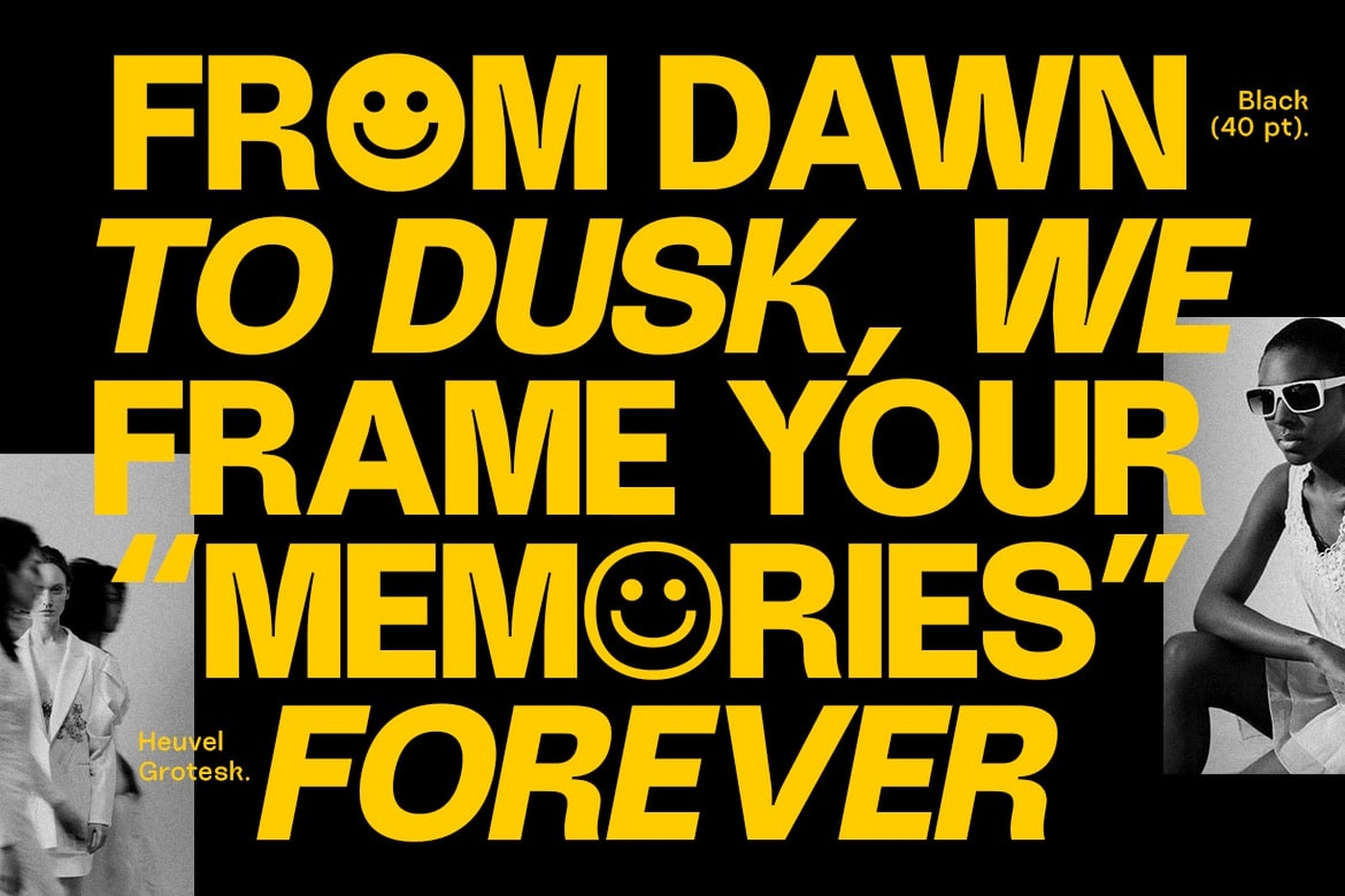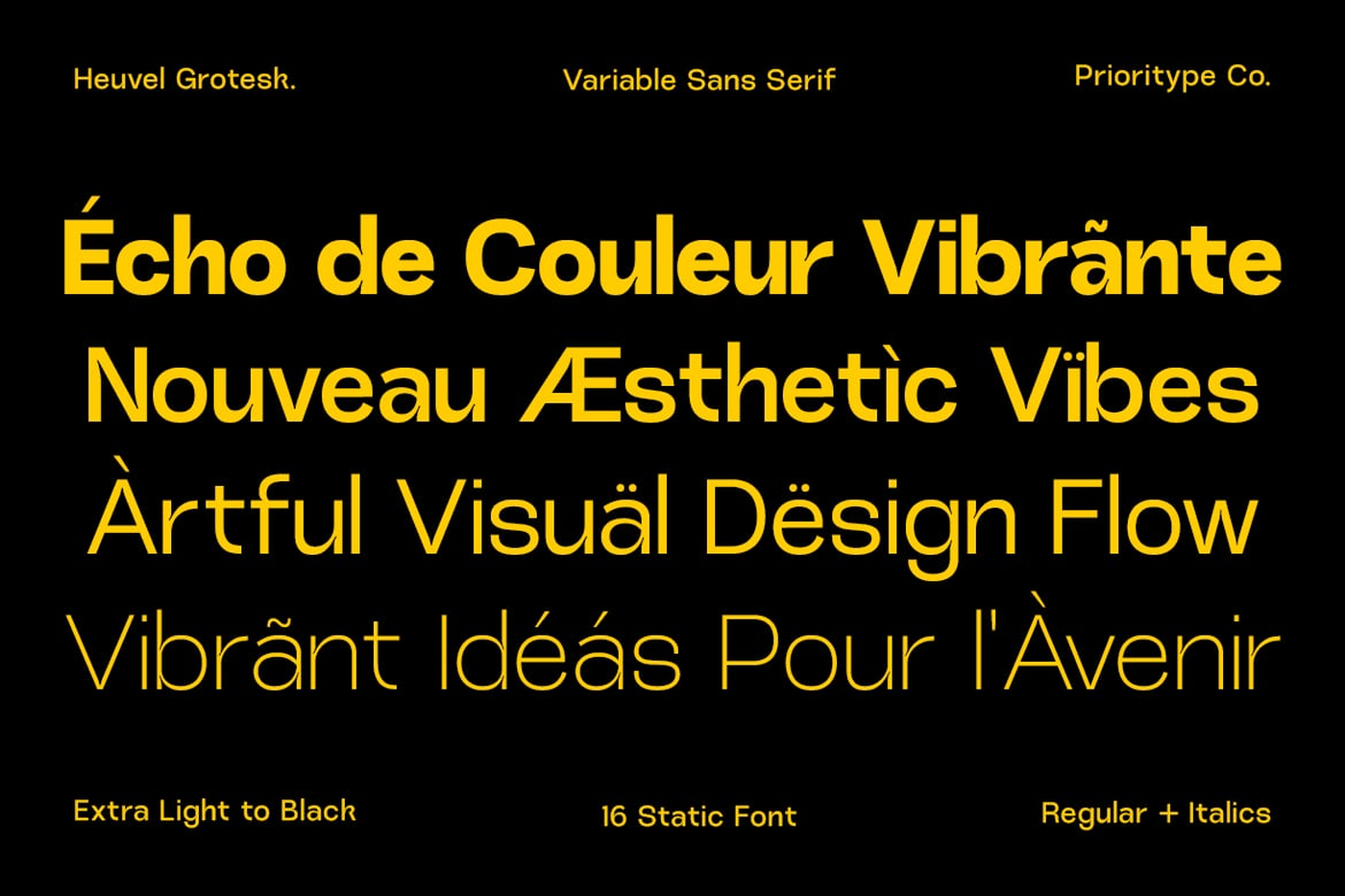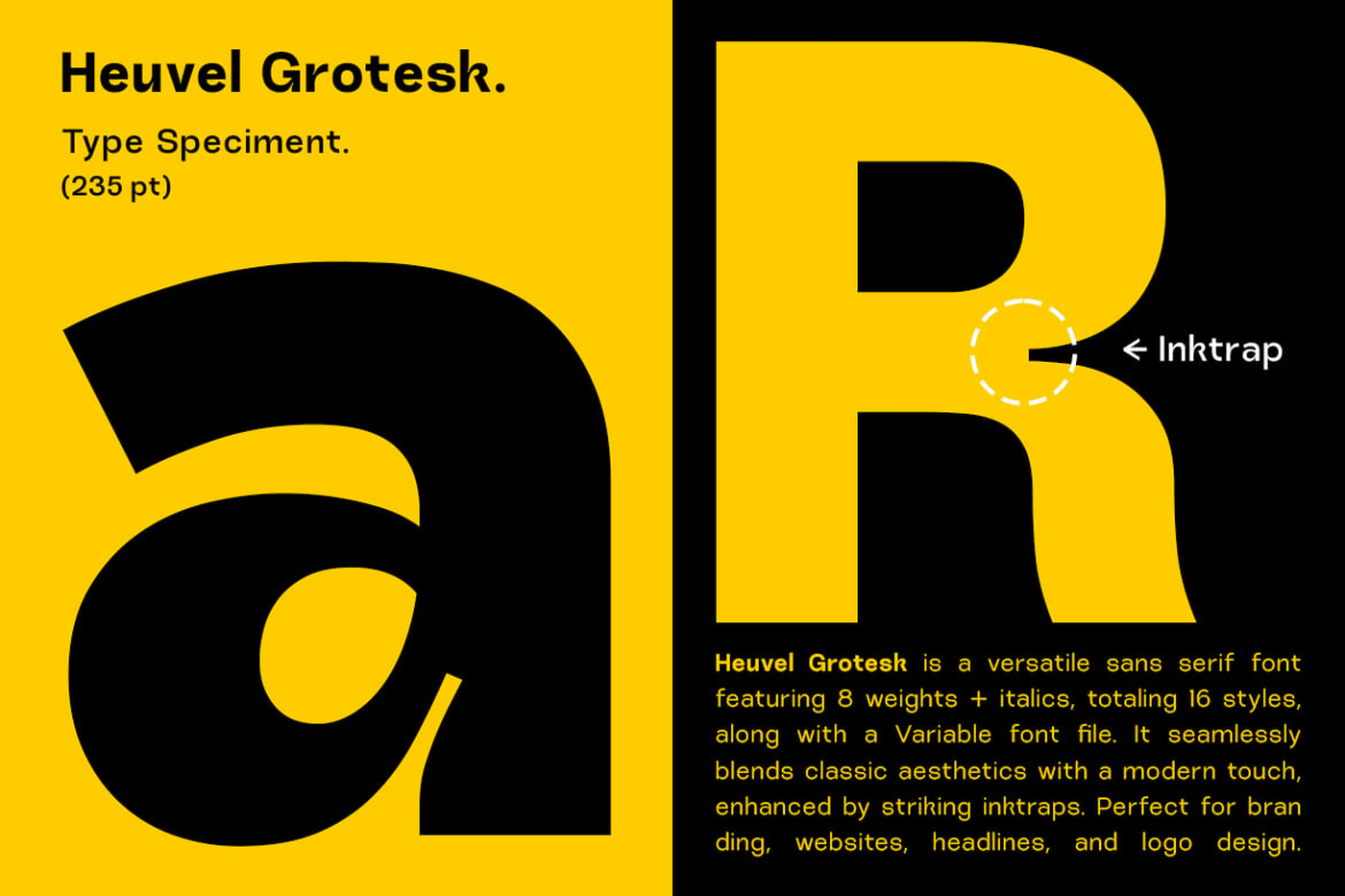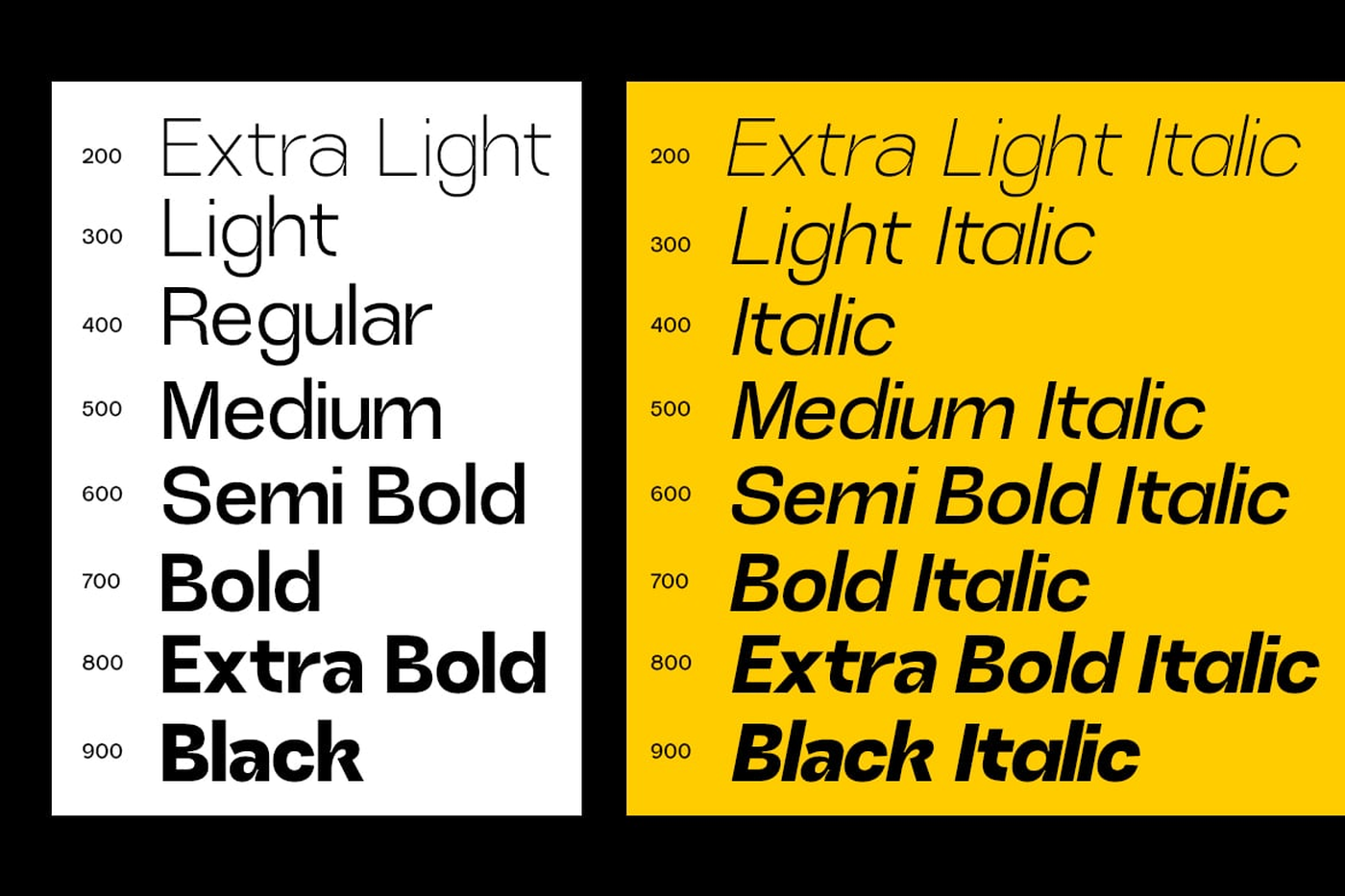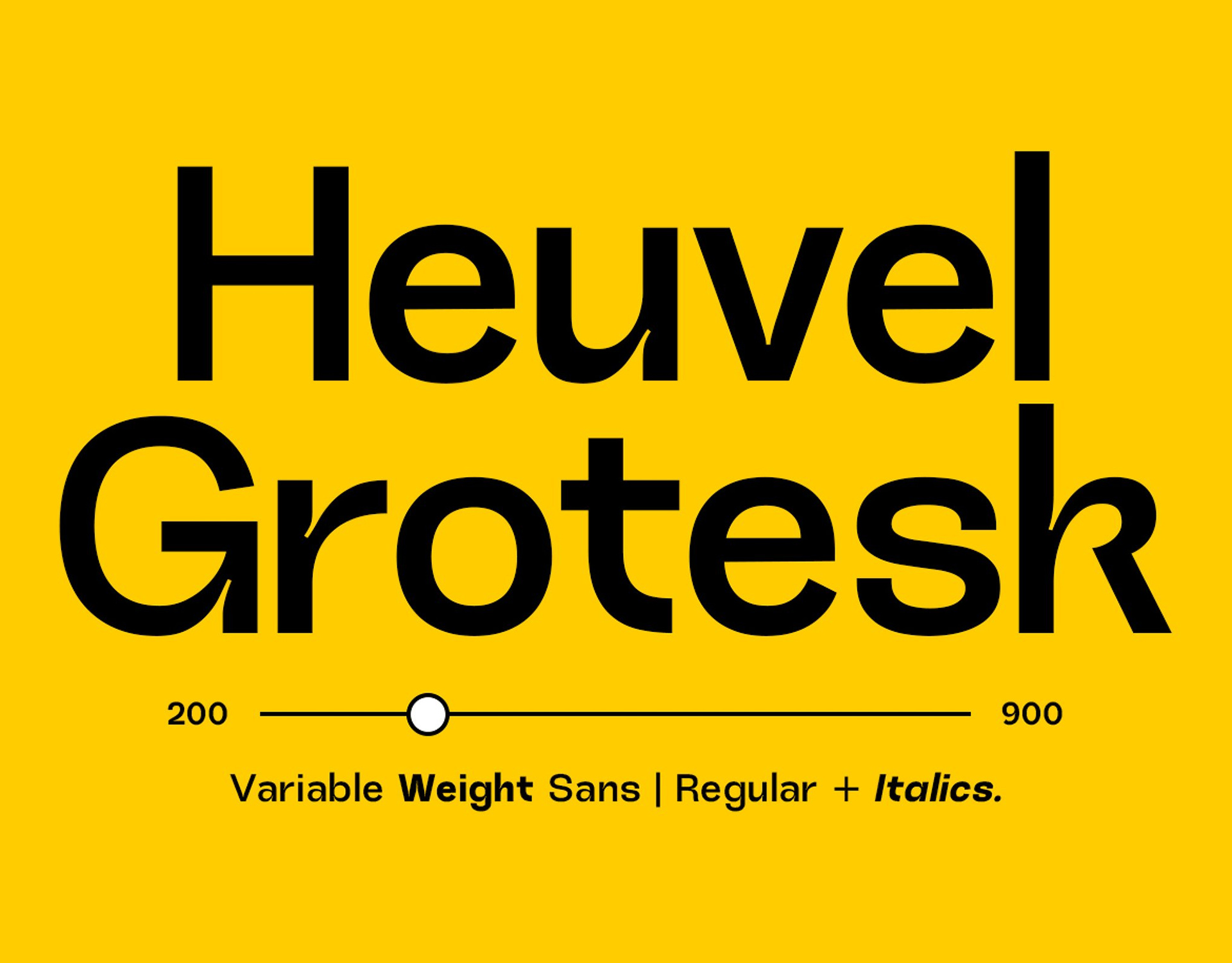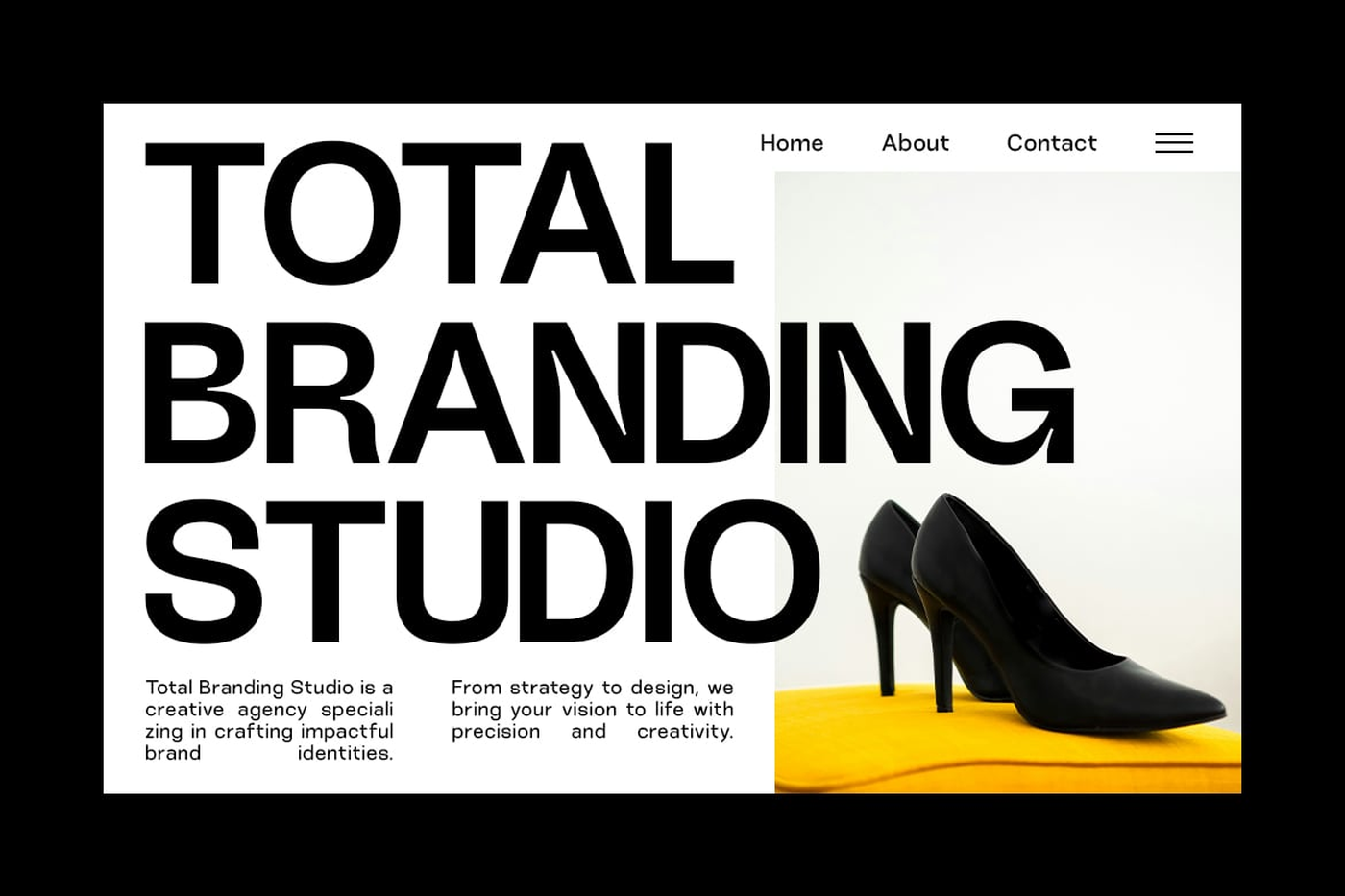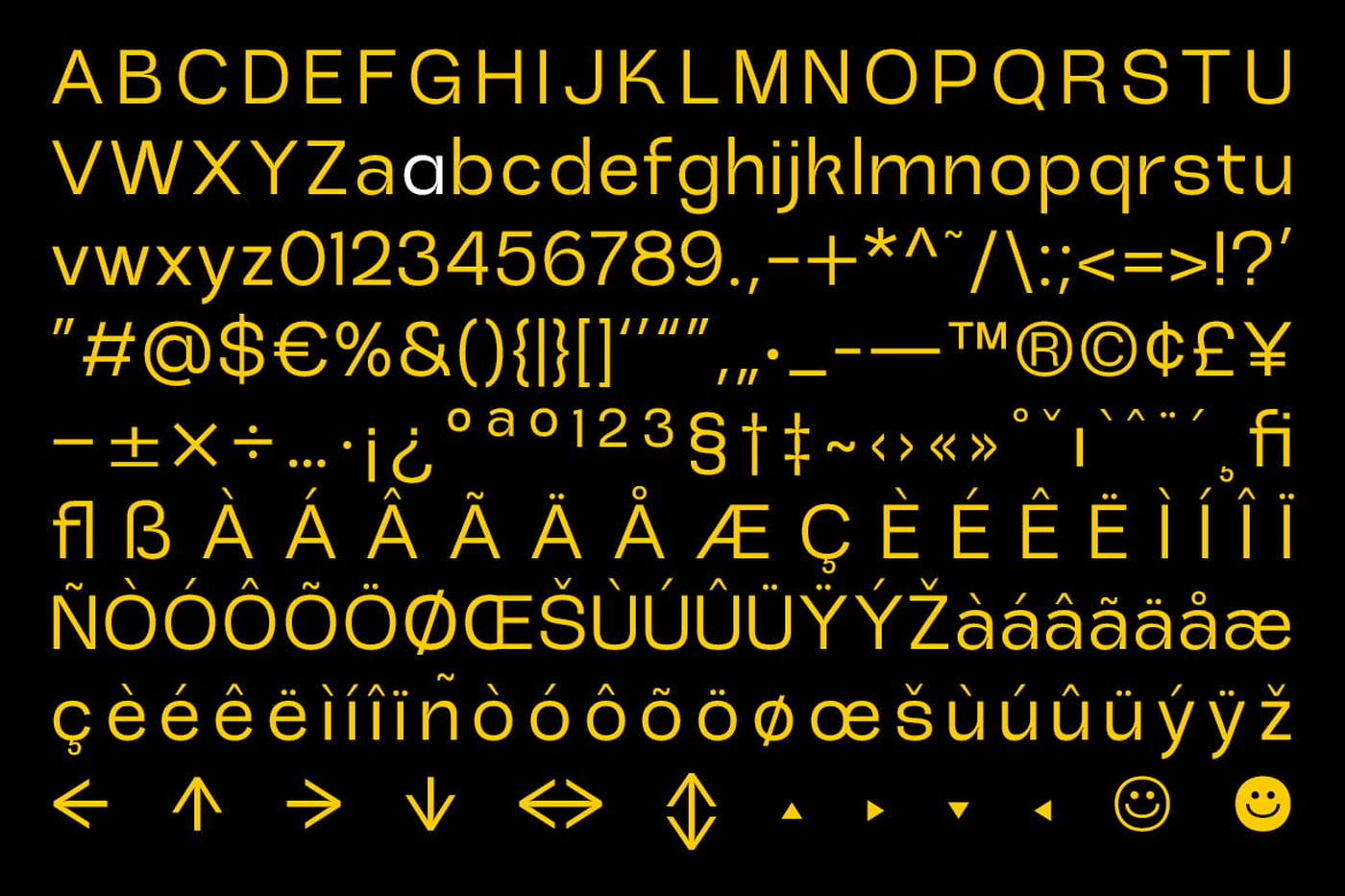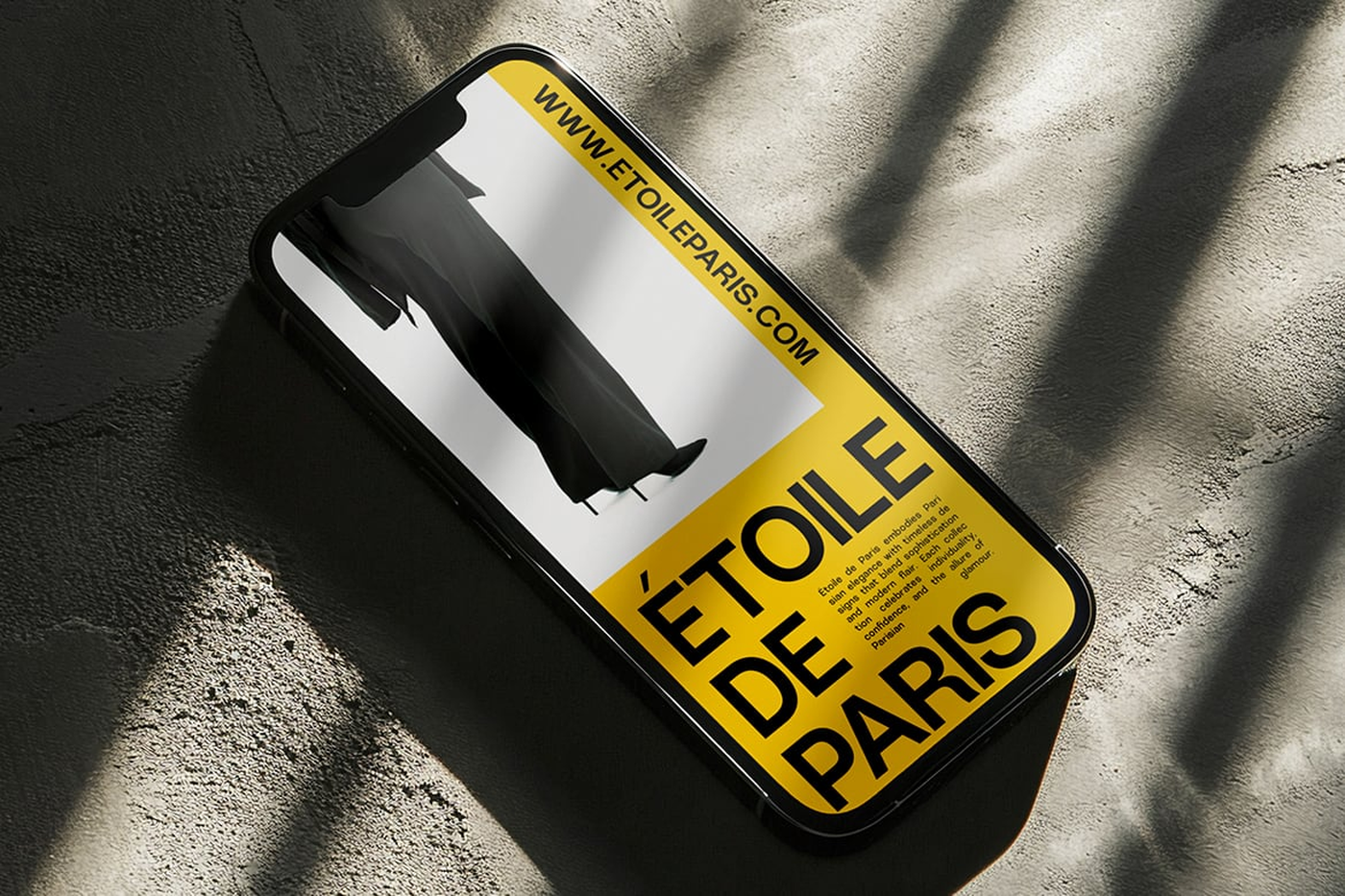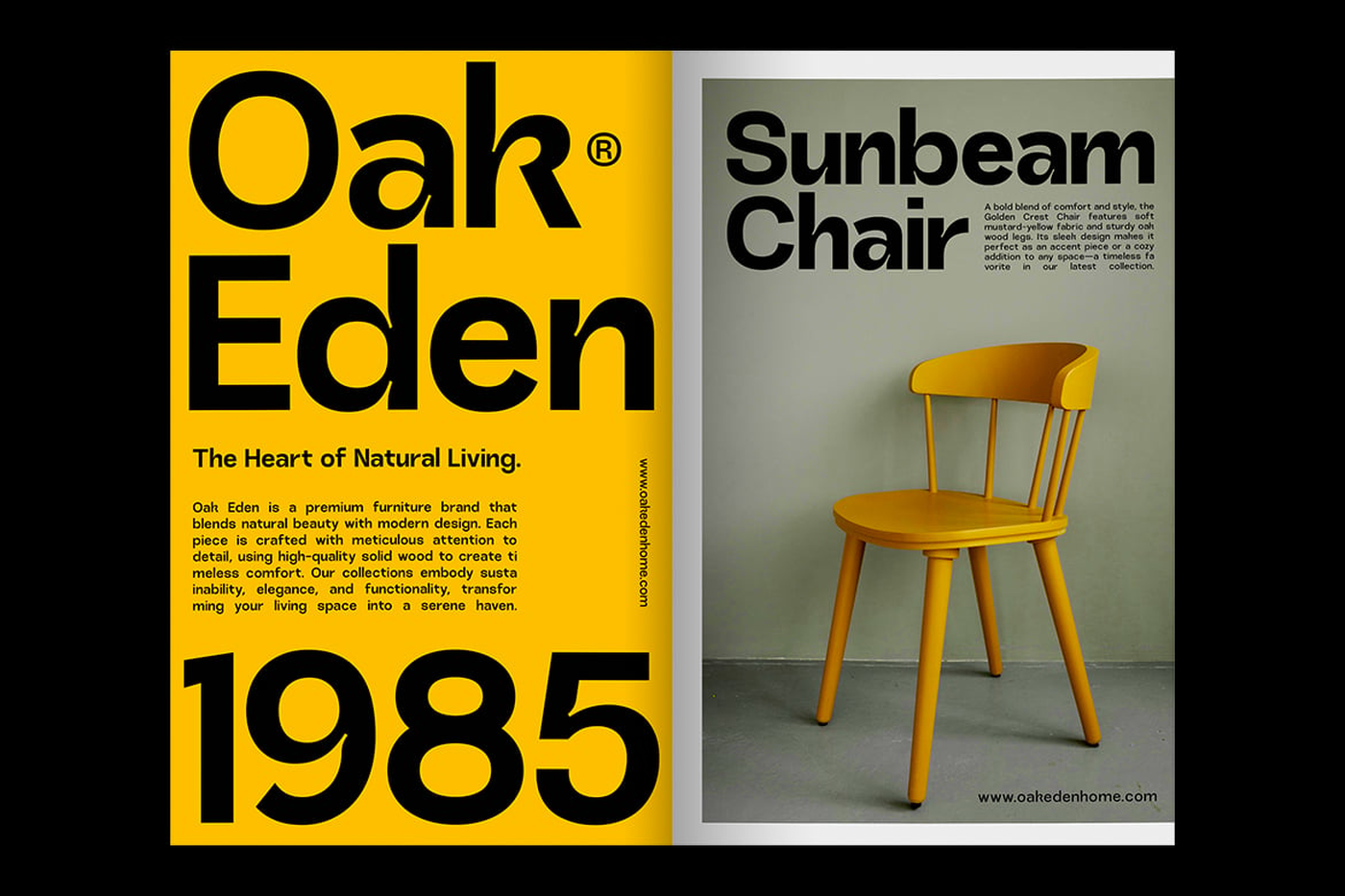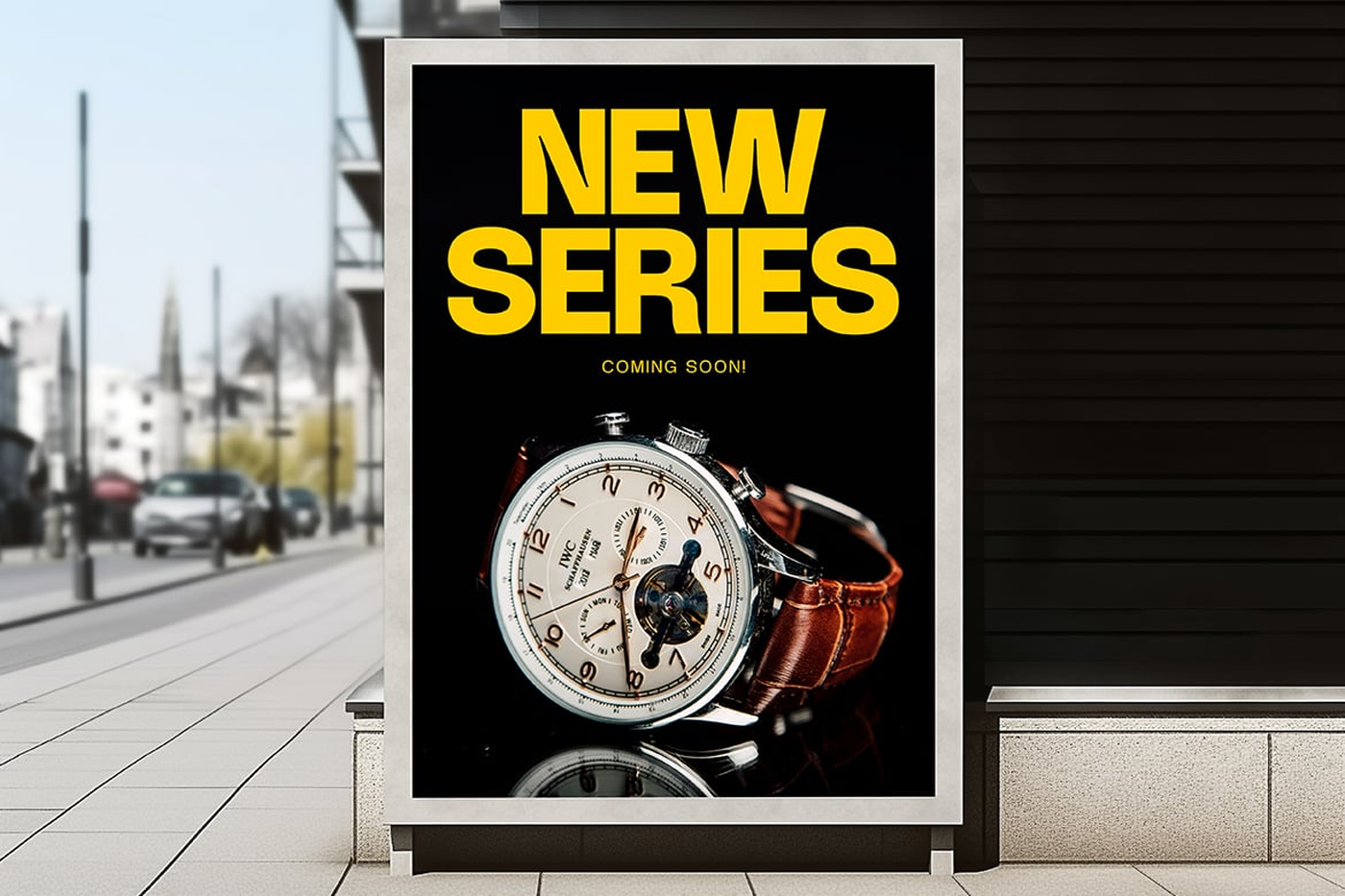
Heuvel Grotesk - Sans Serif Font
Heuvel Grotesk is a versatile sans serif font featuring 8 weights + italics, totaling 16 styles, along with a Variable font file. It seamlessly blends classic aesthetics with a modern touch, enhanced by striking inktraps. Perfect for branding, websites, headlines, and logo design.